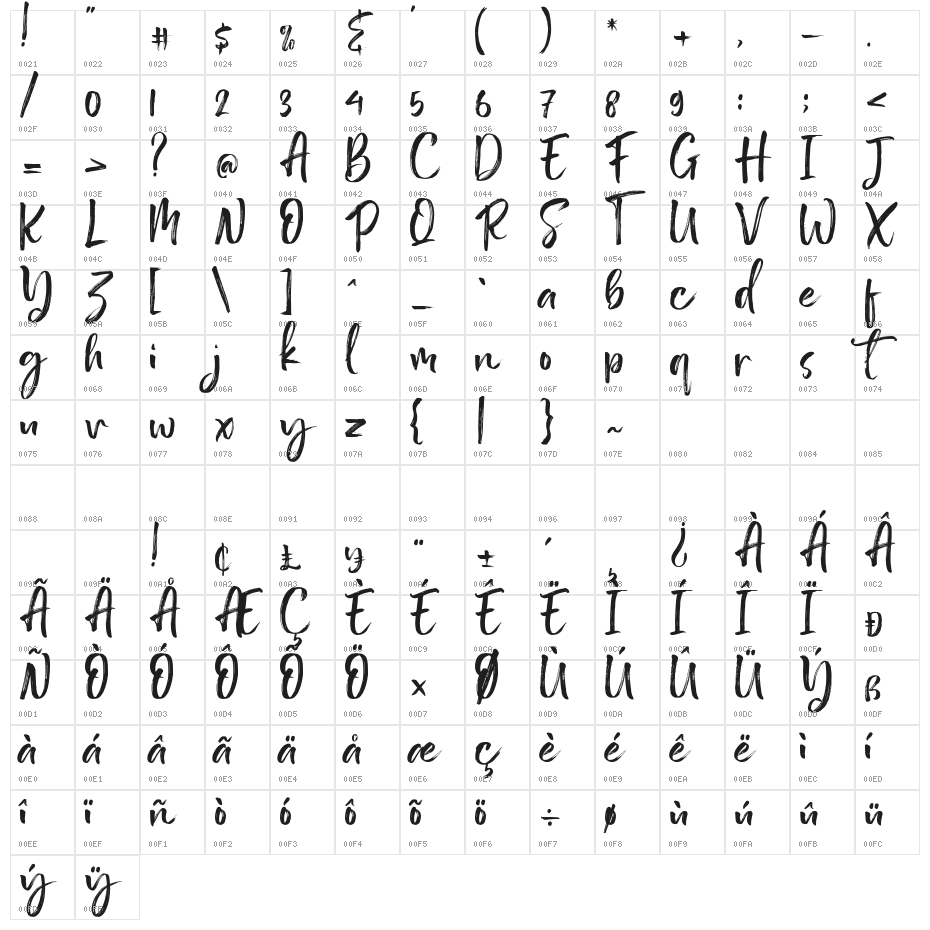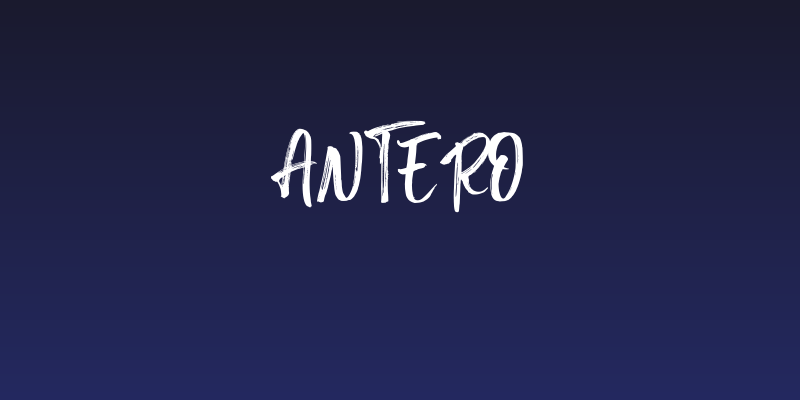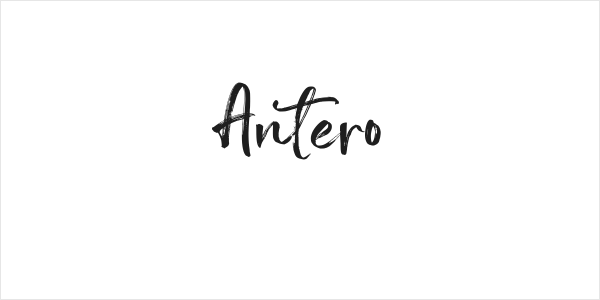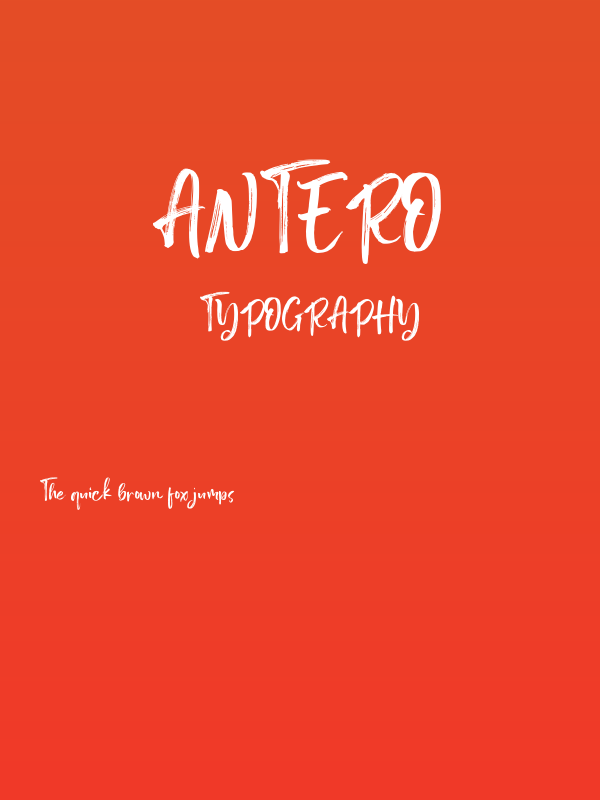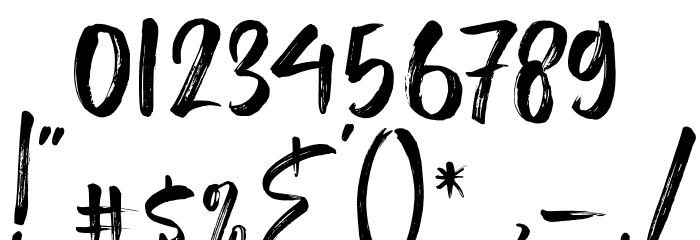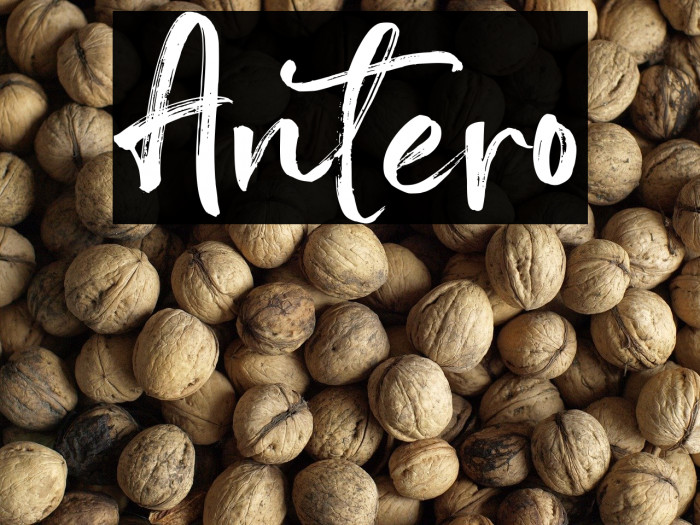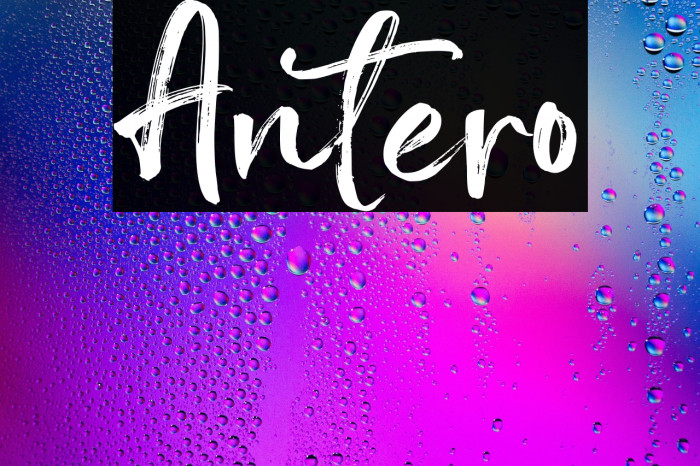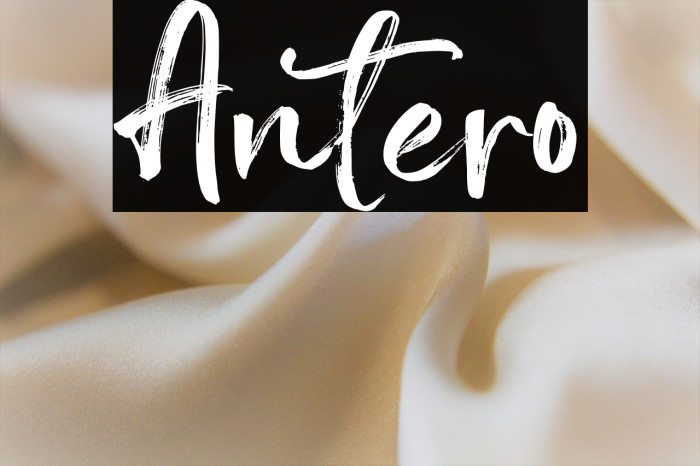
Antero Font
Antero Description
This font exudes a bold and expressive handwritten style, characterized by its dynamic brush strokes and artistic flair. The letters are crafted with a sense of movement, giving each character a unique and lively appearance. The uppercase and lowercase letters maintain a consistent style, with varying thicknesses that add depth and personality. The numbers and special characters are equally expressive, making them suitable for creative and eye-catching designs. The overall look is both modern and artistic, perfect for projects that require a personal touch.
| Overall Style | Modern, Artistic |
| Proposed Projects | Ideal for branding, posters, invitations, and social media graphics where a personal and artistic touch is desired. |